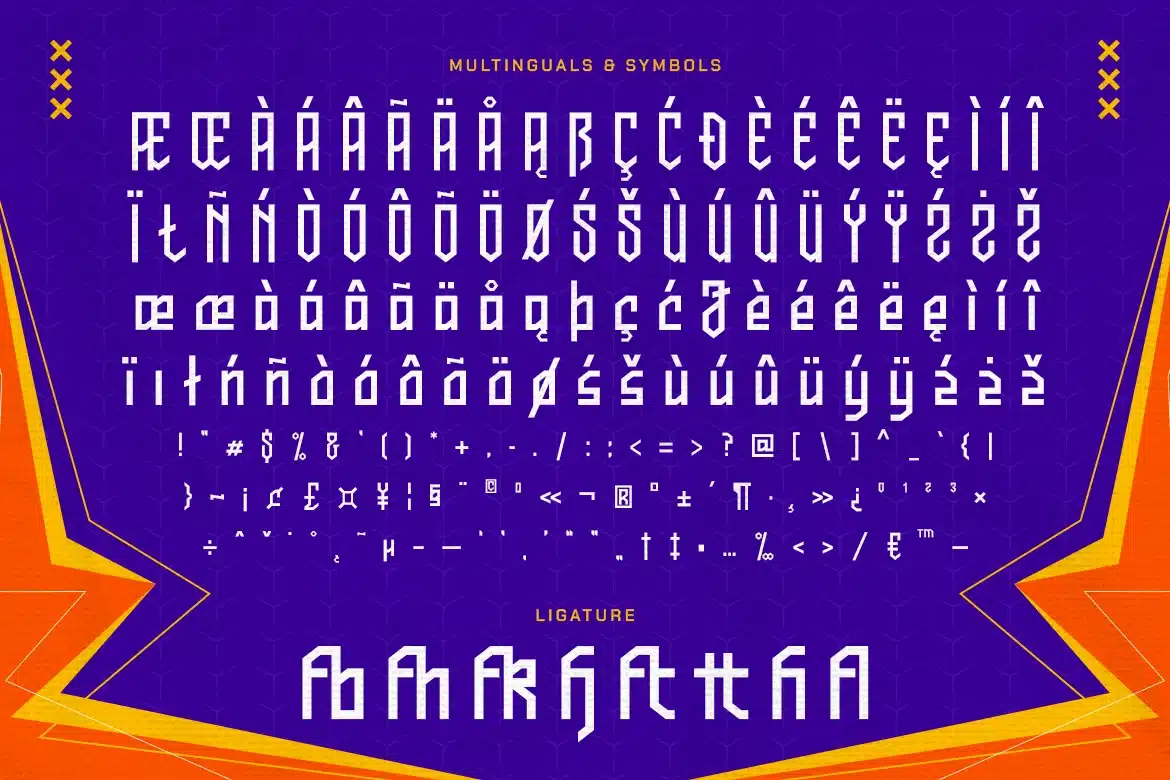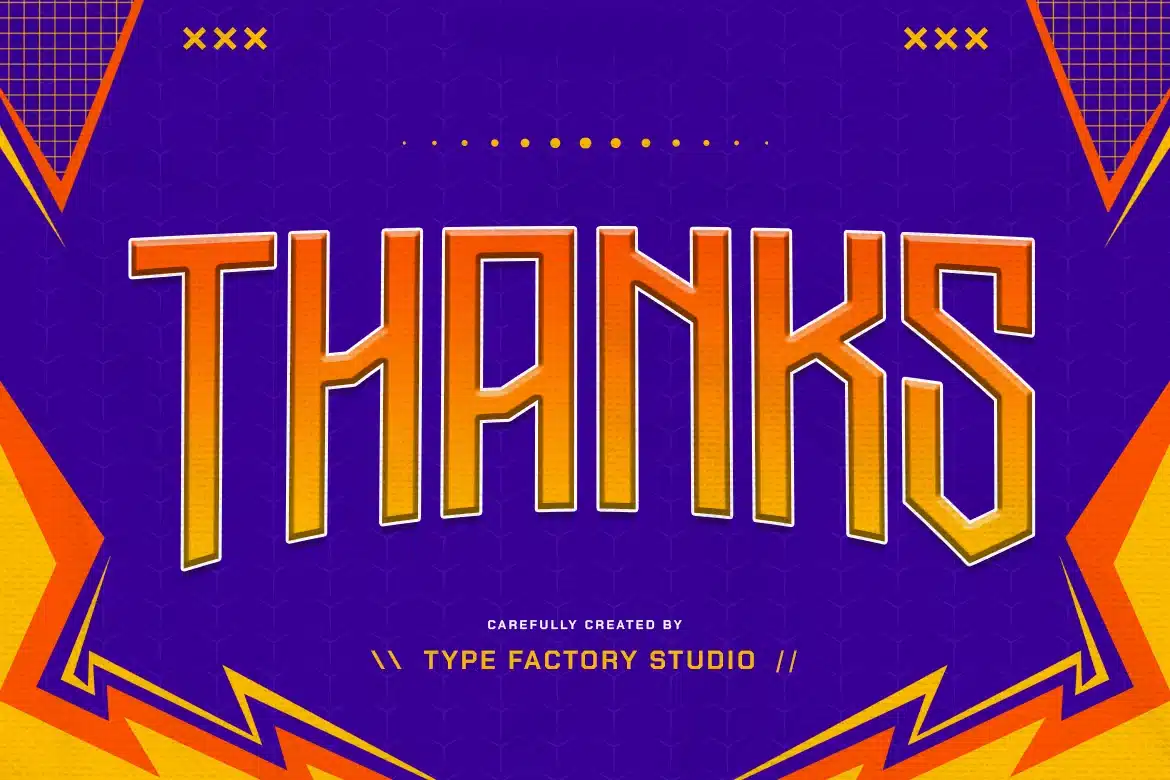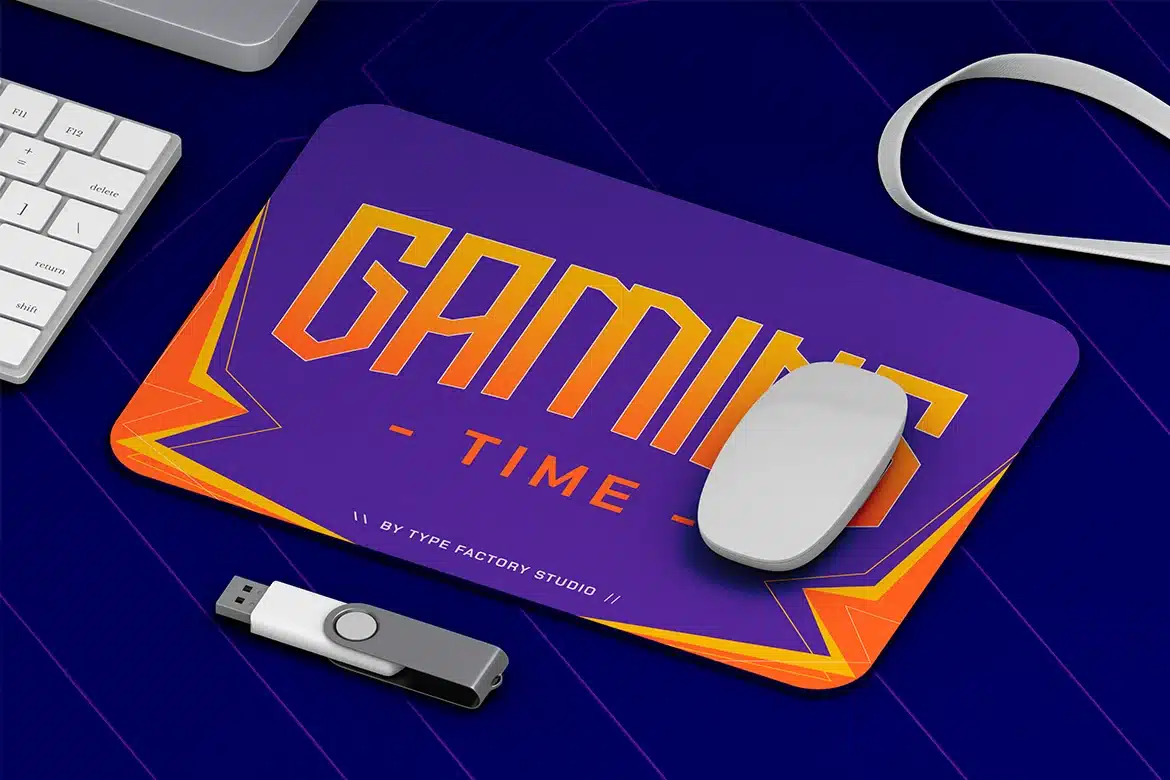
Esport Gaming Font – Sternco
Sternco is a bold esport display typeface inspired by competitive gaming and athletic lettering. The characters feature sharp angles and structured forms that create a strong and dynamic visual impact.
Designed with a condensed and tall proportion, Sternco delivers high readability in large display settings. Its aggressive and modern style makes it suitable for esports branding, team logos, gaming content, and sports-related graphics.
Sternco works well for posters, streaming overlays,event promotions, and visual identities that require a powerful and energetic typographic style.
– Uppercase
– Lowercase
– Symbols & Punctuation
– Numeral
– Ligature
– Multilingual Support